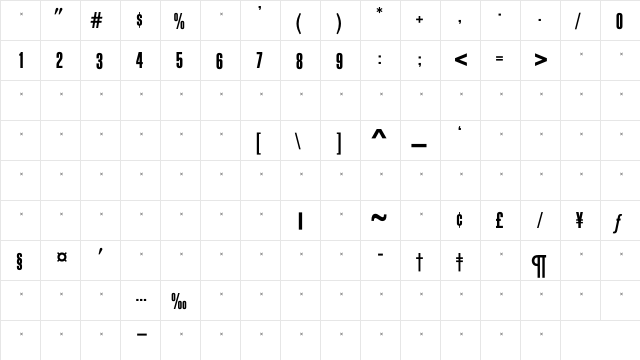
BlockGothicBoldExtraCondTab Regular Font Preview
Design Context for BlockGothicBoldExtraCondTab Typeface
BlockGothicBoldExtraCondTab has the quiet confidence of well-executed sans-serif typography: versatile, unobtrusive, and dependable at any size. Its bold stroke weight gives it real presence on the page. The condensed width makes it efficient for tight spaces without sacrificing legibility.
Well-suited to navigation labels, product packaging, and anywhere legibility at scale is essential.
Font Pairing: Use BlockGothicBoldExtraCondTab for headlines alongside a lighter-weight sans or serif for body copy to establish clear visual hierarchy.
Pro Tip: Use BlockGothicBoldExtraCondTab tightly set in headlines and banners — its condensed proportions make it ideal for maximum impact in minimum horizontal space.